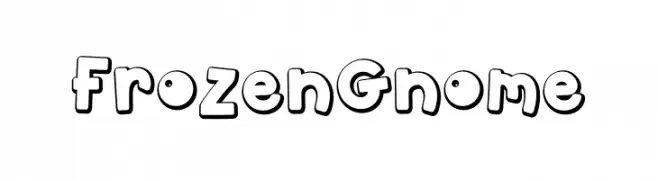
A playful, hand-drawn font with bold, rounded edges and outlined characters.
A bold, playful font with a hand-drawn aesthetic and rounded characters.
A playful, bold font with cartoonish, rounded characters and thick outlines.